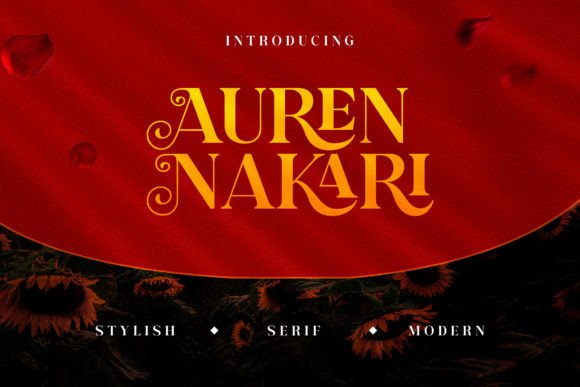
The Elegance of AurenNakari Font: A Designer’s Delight
I still remember the time I was working on a wedding invitation project, and my client asked for a font that exuded elegance and sophistication. I scoured the internet, tried out numerous fonts, but none seemed to fit the bill. That was until I stumbled upon AurenNakari Font. It was love at first sight! ✨ The stylish and elegant serif font instantly elevated my design, and my client was thrilled with the result.
An Honest Review of AurenNakari Font
- ✨ Elegant and sophisticated design, perfect for high-end projects
- ✅ Highly versatile, suitable for a variety of designs, including wedding invitations, thank you cards, greeting cards, logos, and more
- 💫 Beautifully crafted serifs, adding a touch of luxury to any design
- 🎨 Excellent for use in both digital and print designs
While AurenNakari Font is an excellent choice for many projects, there are a few things to keep in mind:
- ⚠️ Some users may find the font a bit too ornate for certain projects, such as body text or lengthy articles
- 🤔 Limited availability of certain OpenType features, such as ligatures or stylistic alternates, in certain software or platforms
The Designer Inspiration Behind AurenNakari Font
AurenNakari Font was designed with the intention of creating a elegant and sophisticated serif font that would meet the needs of designers and crafters. The font’s creator drew inspiration from classic serif fonts, while infusing it with a modern twist. The result is a font that is both timeless and trendy, perfect for a wide range of designs.
| What type of designs is AurenNakari Font best suited for? | AurenNakari Font is highly versatile and can be used for a variety of designs, including wedding invitations, thank you cards, greeting cards, logos, and more. |
| Does AurenNakari Font support OpenType features? | Yes, AurenNakari Font supports OpenType features, including glyphs and stylistic alternates. However, the availability of these features may vary depending on the software or platform used. |
| Can I use AurenNakari Font in both digital and print designs? | Yes, AurenNakari Font is suitable for use in both digital and print designs. Its elegant and sophisticated design makes it perfect for a wide range of applications. |